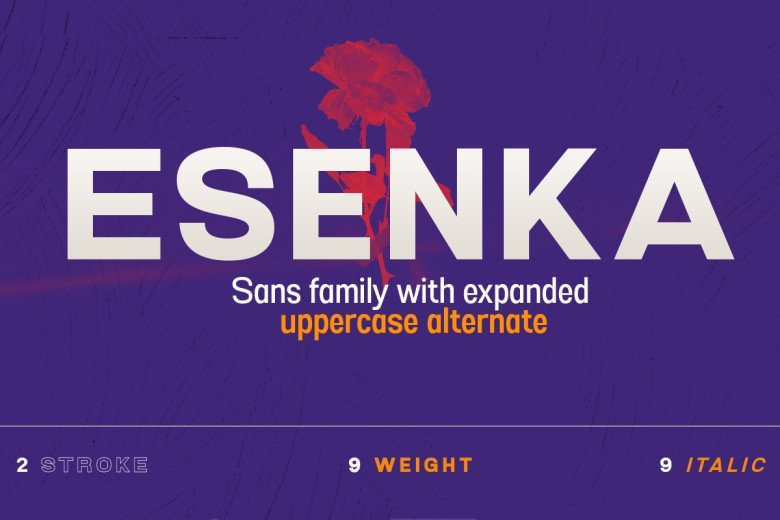
Esenka Font
Esenka is a beautiful and unique sans-serif font. Masterfully designed to become a true favorite, this font has the potential to bring each of your creative ideas to the highest level without effort.
Add it confidently to any creative project, and you will see how much a little innovation could further optimize your work!
Esenka Sans Font Family